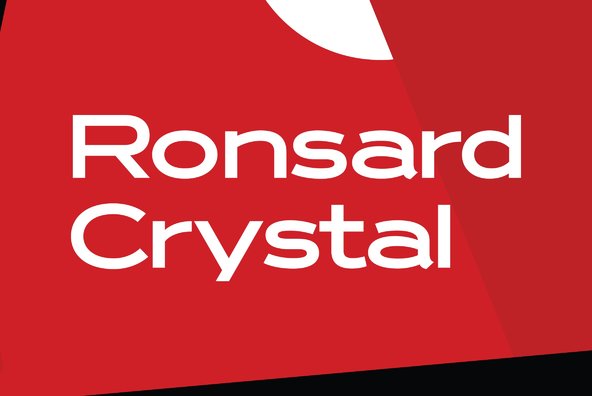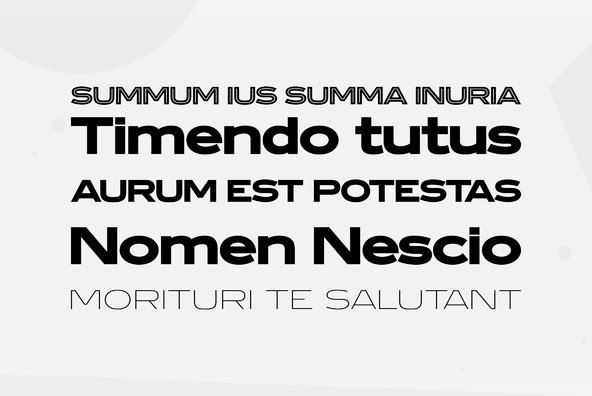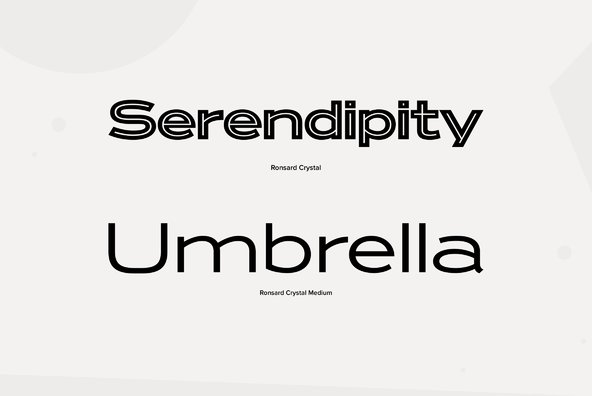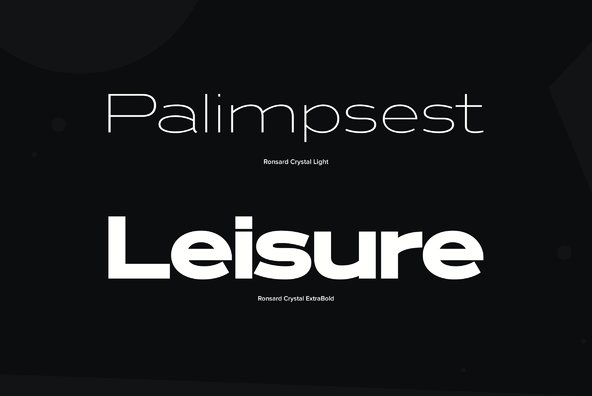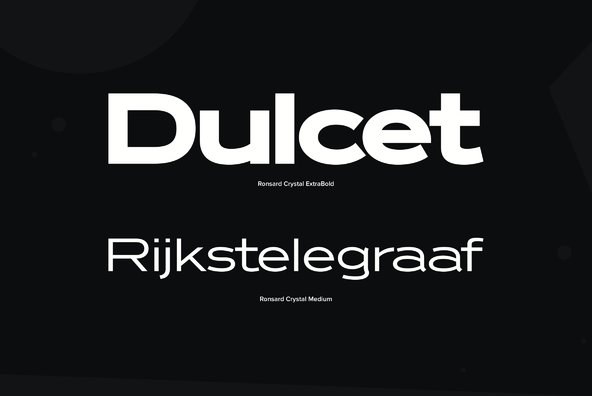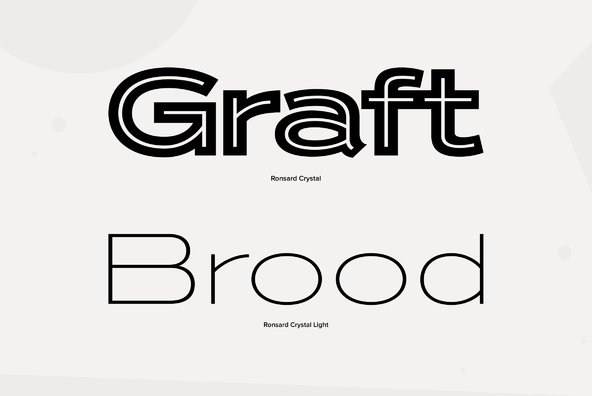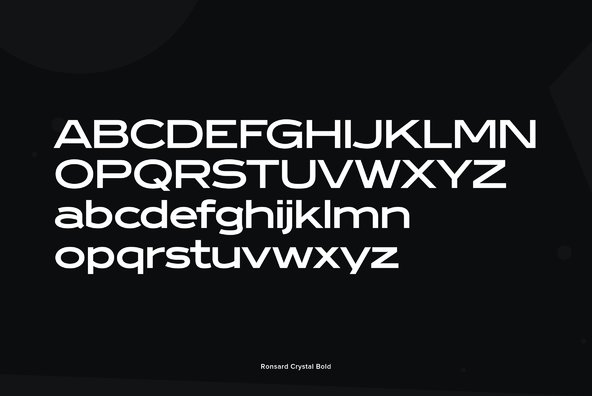
Designed by Steve Jackaman and Ashley Muir. The original Ronsard Crystal began its life as a single-weight photolettering font in the 1950s. We lliked it so much, that we decided to design four traditional weights to go with the original inline version....
Designed by Steve Jackaman and Ashley Muir. The original Ronsard Crystal began its life as a single-weight photolettering font in the 1950s. We lliked it so much, that we decided to design four traditional weights to go with the original inline version.